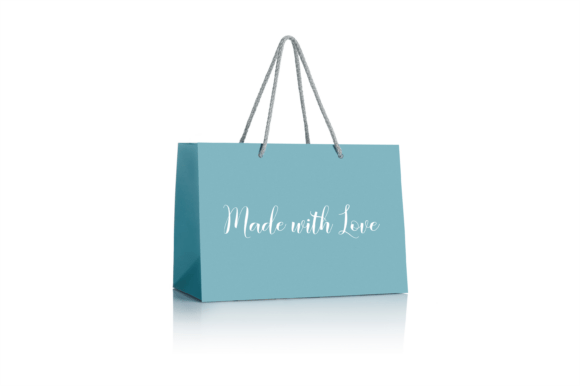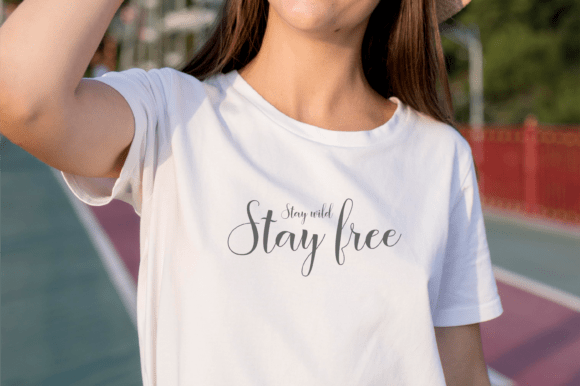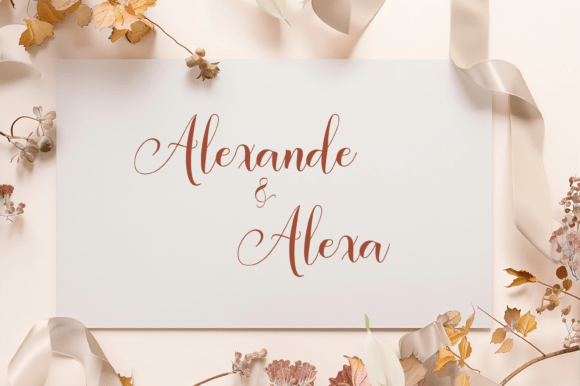
The Amorette Font: A Timeless Choice for Creative Projects
I’ll never forget the time I was working on a wedding invitation project, and my client asked me to create a custom font to match the elegance and sophistication of their special day. I spent hours scouring the internet for the perfect font, but nothing seemed quite right. That’s when I stumbled upon Amorette, a romantic calligraphy script font that stole my heart. With its elegant curves and stylish swashes, Amorette added a touch of timeless charm to my design, and my client loved it! 💕
An Honest Review of Amorette
What I Love About Amorette ✨
- 💫 Elegant and sophisticated design that’s perfect for high-end projects
- 📝 Highly versatile and can be used for a wide range of creative projects
- 💬 Beautiful swashes and stylistic alternates that add a touch of personality to any design
- 👍 Well-suited for both digital and print projects
- 💯 Timeless charm that never goes out of style
While Amorette is an amazing font, there are a few things to keep in mind. For example, some of the swashes and stylistic alternates can be a bit finicky, and may not work well in all design programs. Additionally, Amorette is a script font, so it may not be the best choice for body text or long blocks of text. 🤔
A Practical Guide to Using Amorette
The Story Behind Amorette
Amorette was designed by a team of talented typographers who wanted to create a font that would capture the essence of romance and elegance. Inspired by traditional calligraphy and hand-lettering, Amorette features beautiful swashes and stylistic alternates that add a touch of personality to any design. Whether you’re designing a wedding invitation or a luxury brand logo, Amorette is the perfect choice.
Q: What is Amorette font?
A: Amorette is a romantic calligraphy script font with elegant curves and stylish swashes.
Q: What can I use Amorette for?
A: Amorette is highly versatile and can be used for a wide range of creative projects, including wedding invitations, save the date cards, greeting cards, feminine logos, luxury branding, fashion magazines, beauty products, product packaging, photography watermarks, business cards, posters, quotes, social media content, and personal branding.